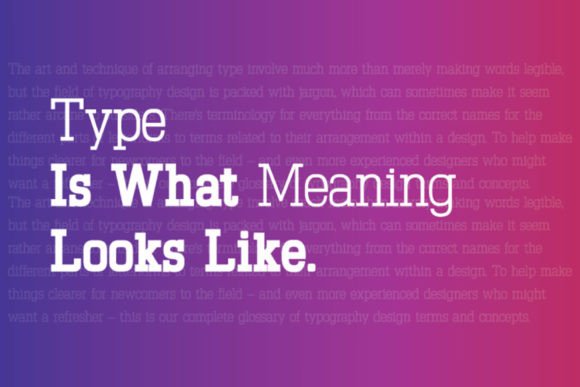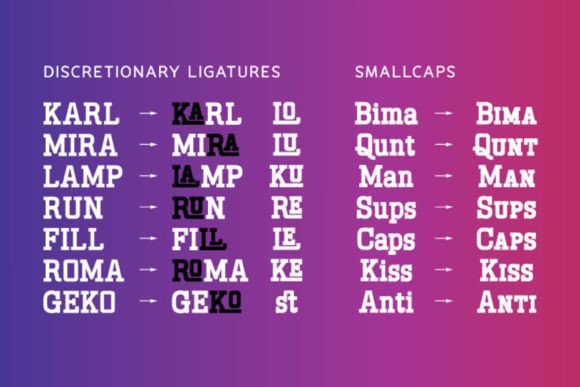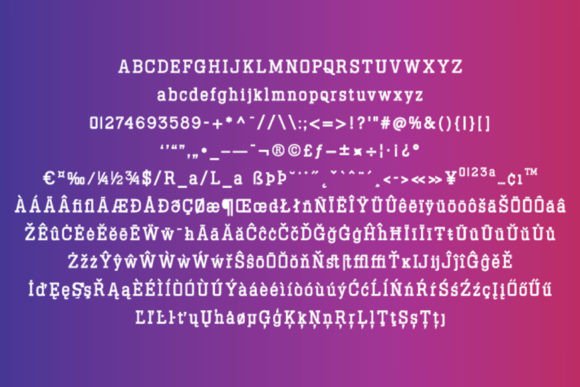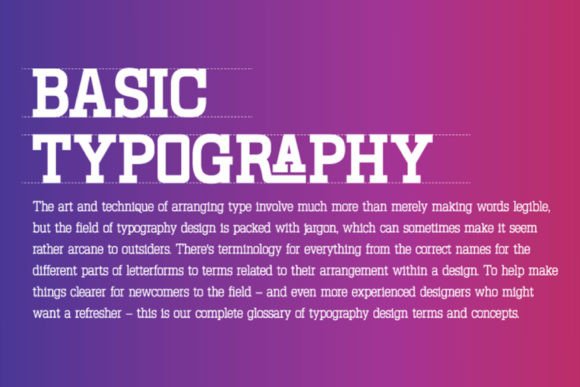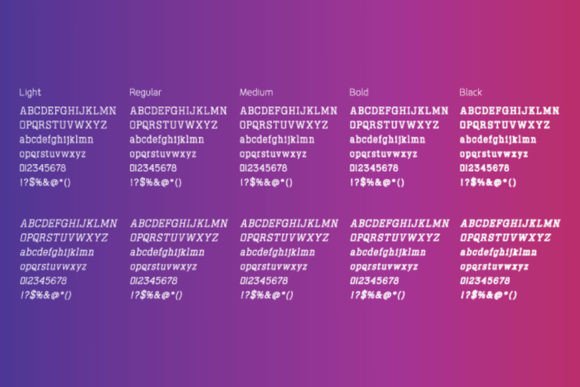
Introduction to Mahardika Font
Have you ever been stuck in a creative rut, desperately searching for that perfect design element to elevate your project from ordinary to extraordinary? As a designer, we’ve all been there – scouring the internet for the ideal font to convey the essence of our vision. And then, it hits you – a burst of inspiration, a spark of creativity that sets your project ablaze. For many, that spark is the Mahardika Font, a sleek and captivating display font that brings the neon lights of the city to life.
This modern and attractive font is a game-changer for designers, offering a range of weights and styles that guarantee to make your project stand out. Whether you’re working on a high-quality brochure, a website with a transparent background, or a creative project that demands attention, Mahardika Font is the perfect design resource to elevate your work to new heights.
Key Features of Mahardika Font
- Unique and elegant design, perfect for creative projects that require a touch of sophistication.
- Features a high-quality design with intricate details, making it an excellent choice for designers who demand precision and attention to detail.
Honest Review: Mahardika Font
I recently stumbled upon the Mahardika Font and I must say, I was impressed by its potential as a design resource. As a designer, I’m always on the lookout for high-quality fonts that can elevate my creative projects. The Mahardika Font definitely delivers.
Here are some of the things that I like about the Mahardika Font:
- ✨ High-quality design: The font is well-crafted and looks professional.
- ✨ Versatile: The Mahardika Font is suitable for a wide range of creative projects, from logos to typography.
- ⚠️ Limited character set: The font’s character set is not as comprehensive as some other fonts in its category.
Overall, I think the Mahardika Font is a great addition to any designer’s toolkit. While it may have some limitations, its high-quality design and versatility make it a valuable resource for creative projects. If you’re looking for a free font that can add some sophistication to your designs, the Mahardika Font is definitely worth checking out.
Tips for Getting the Most Out of Mahardika Font
Use the Mahardika Font on a transparent background to create a striking visual effect. Experiment with different font sizes and styles to achieve the desired look. This font is also perfect for use in headings and titles, adding a touch of creativity to your design.
The Mahardika Font is commonly used in creative projects, such as branding, marketing materials, and digital art. Its high-quality design makes it an ideal choice for designers looking to add a unique element to their work.